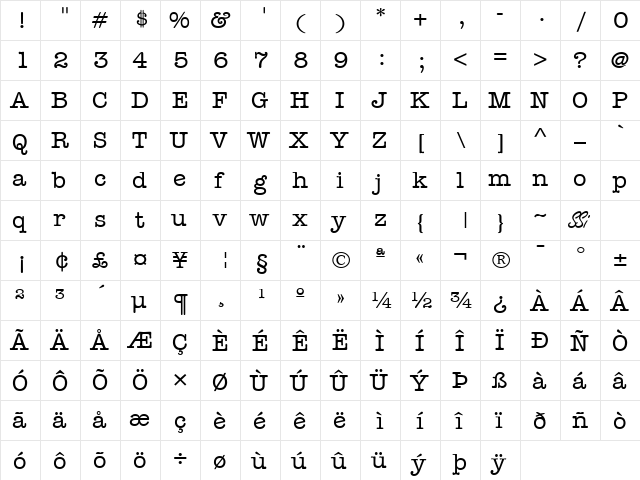
Keyboard Alternate SSi Medium Alternate
Design Context for Keyboard Alternate SSi Typeface
Keyboard Alternate SSi takes a measured approach to typography — its balanced proportions and neutral character make it a reliable workhorse for both digital and print work.